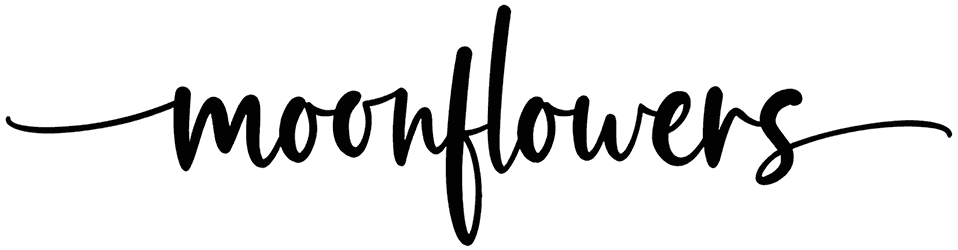
Moonflowers Font
When you need a fancy script font with a vintage feel, Moonflowers won’t let you down. This handwriting font has an entirely different flavor from the other options introduced in RB and is an excellent choice for you whenever you need a font with many flourishes. However, what do you think about using this invitation font for your next book cover, wedding card, or logo?